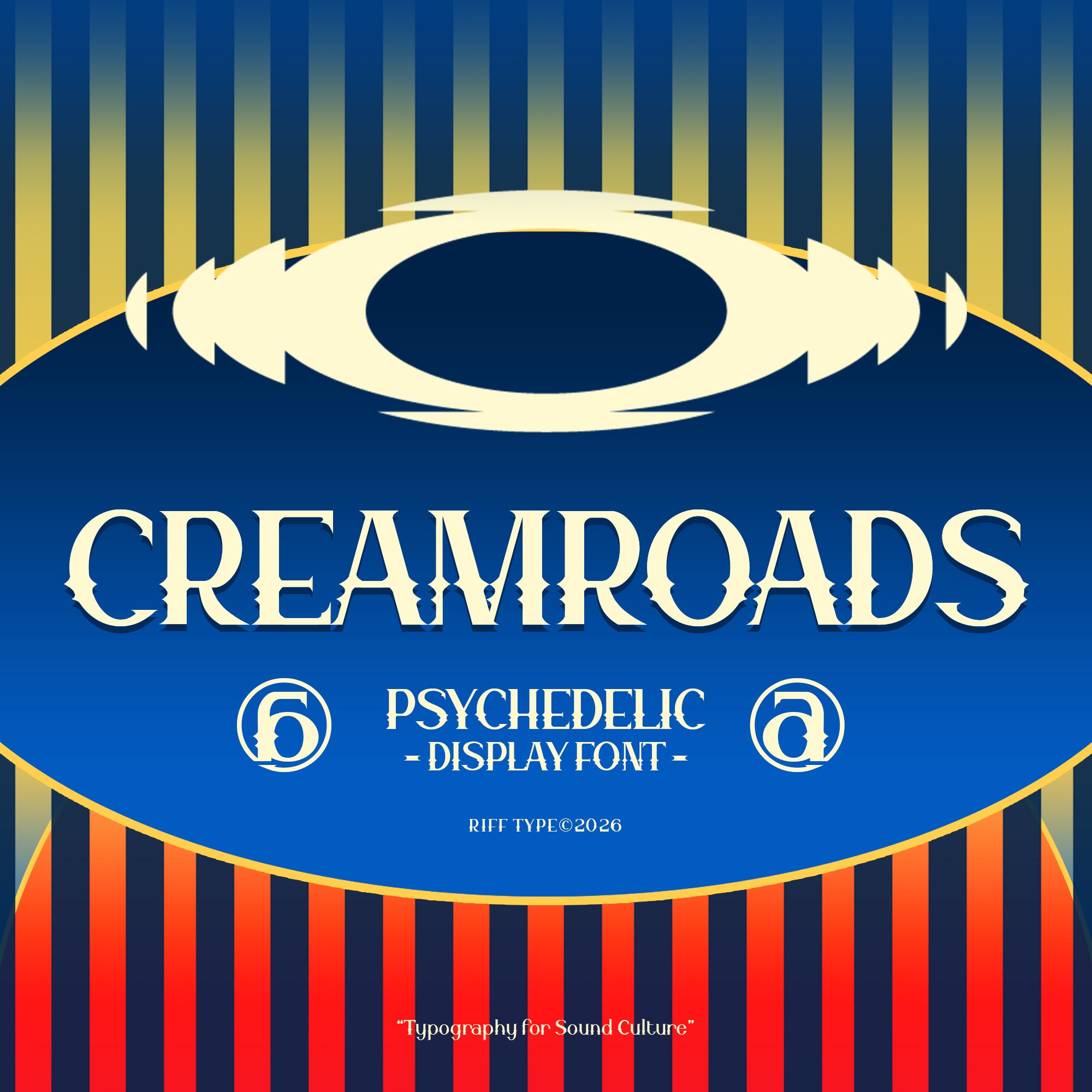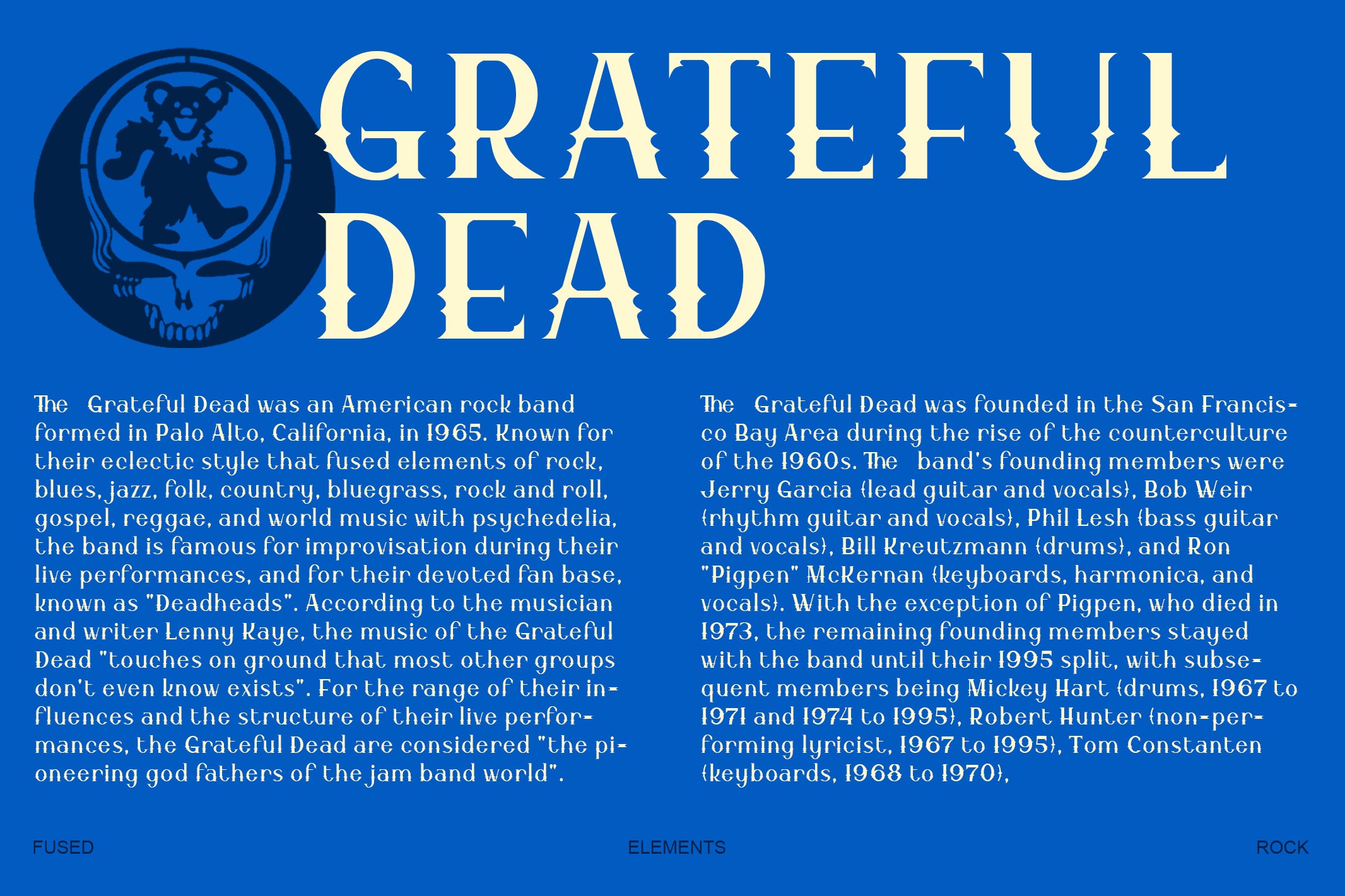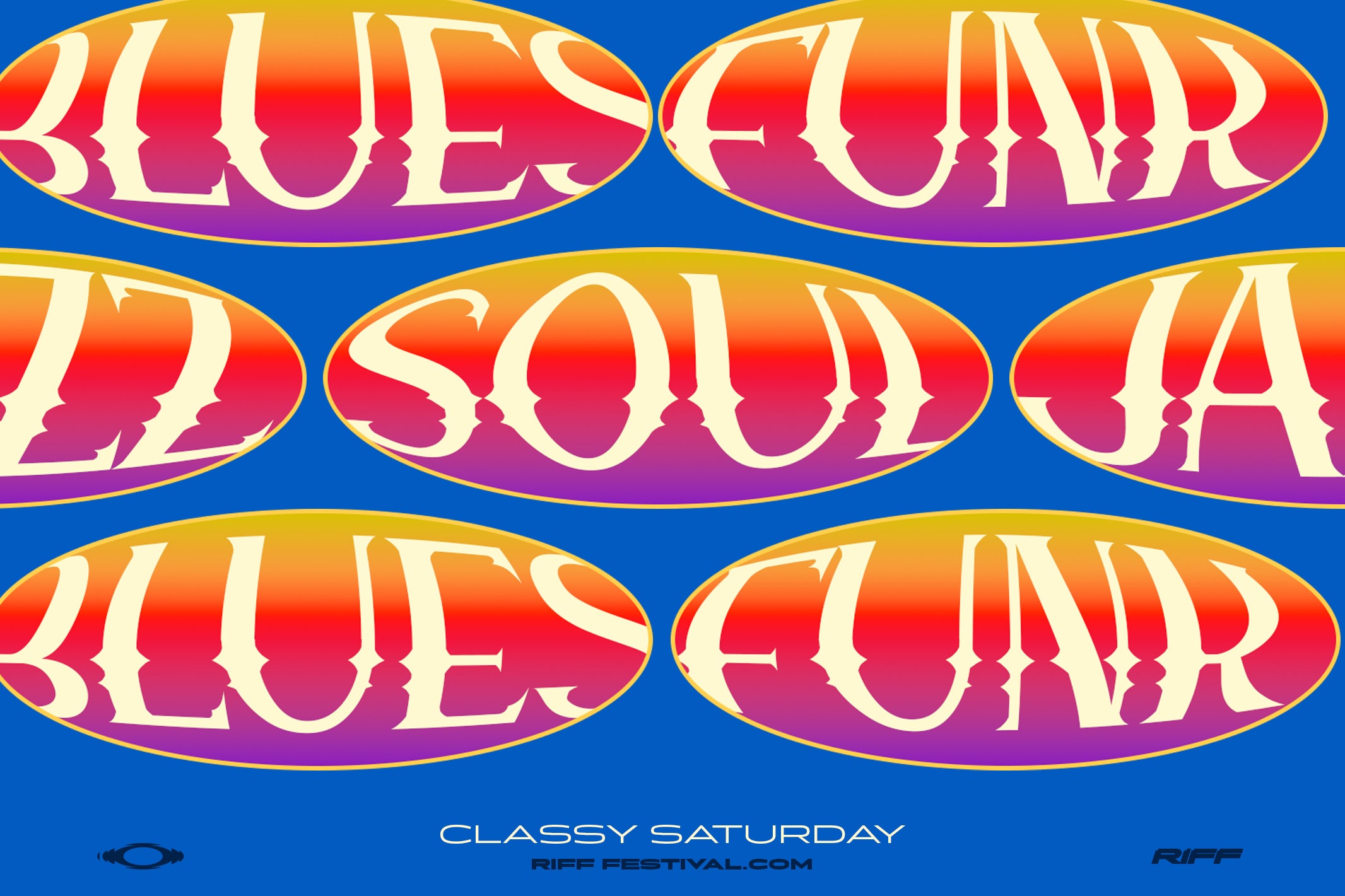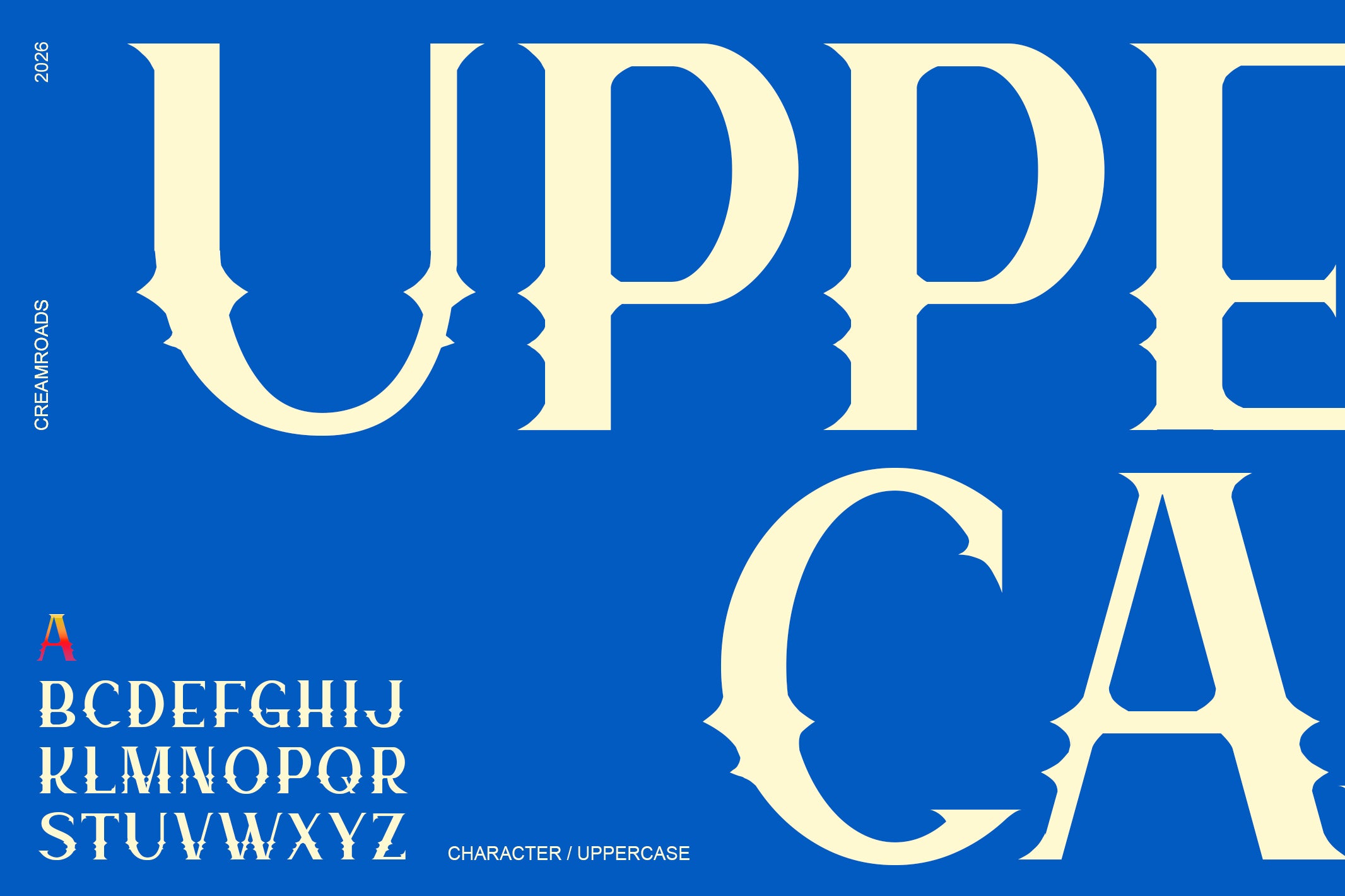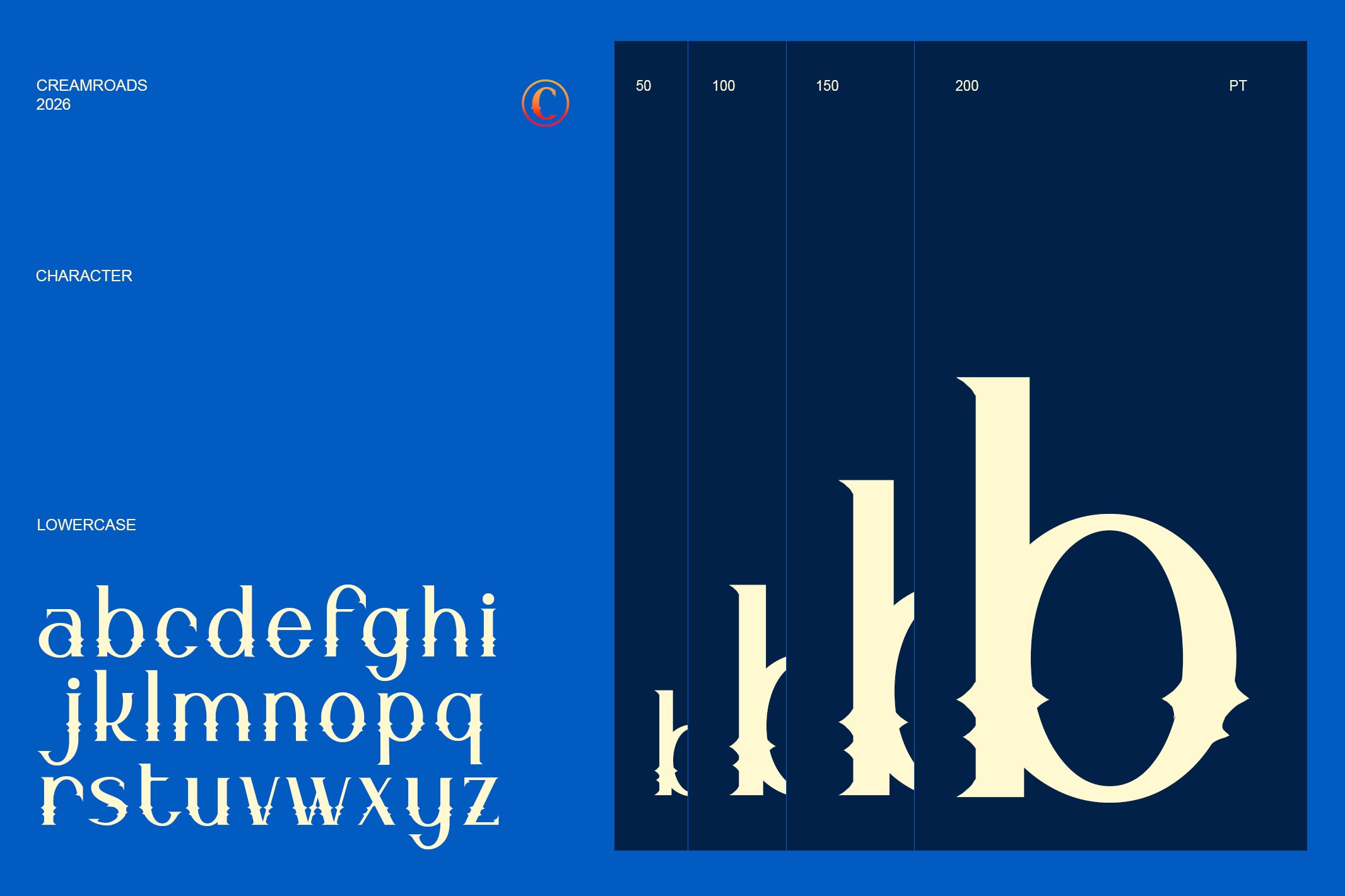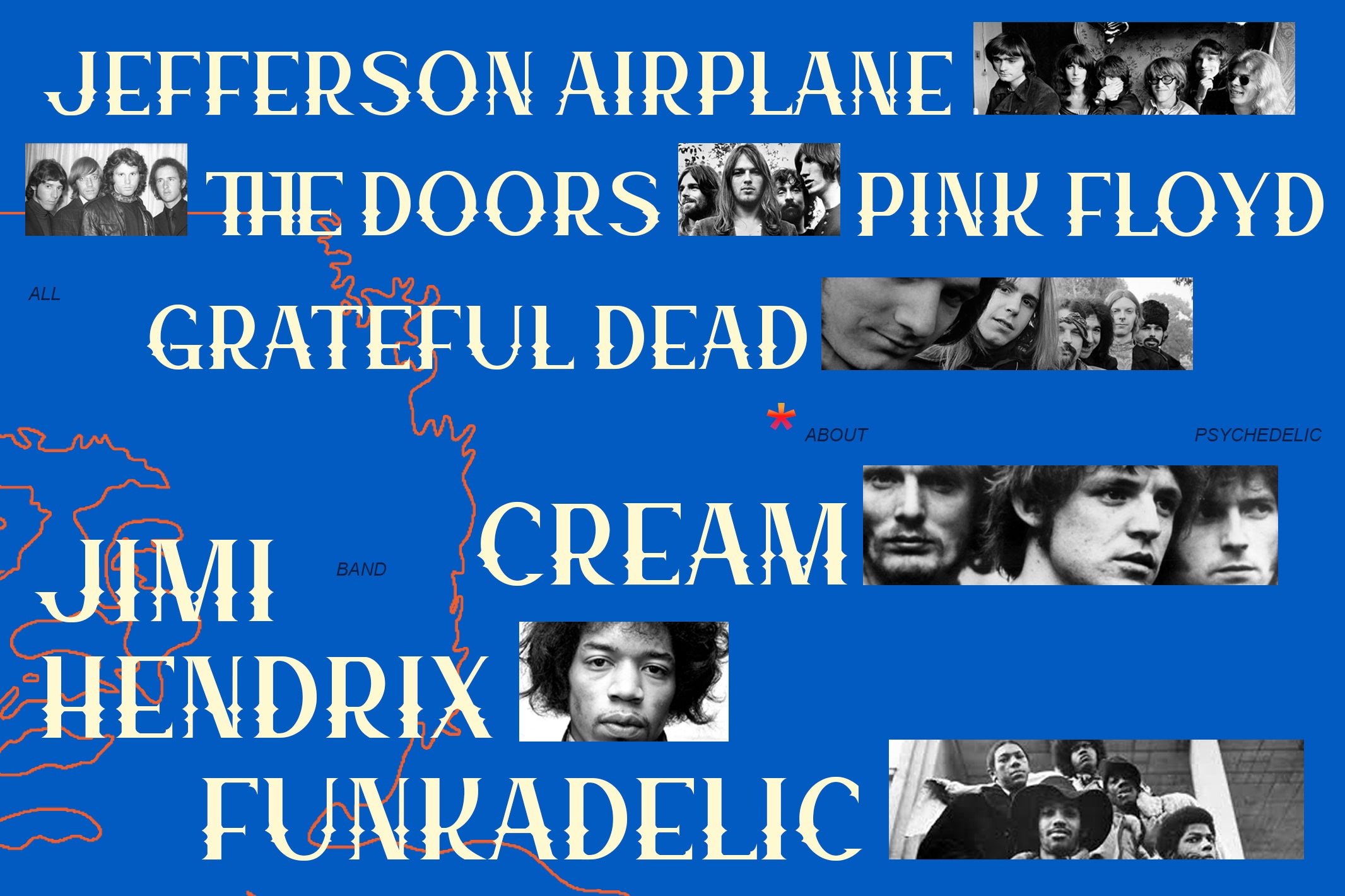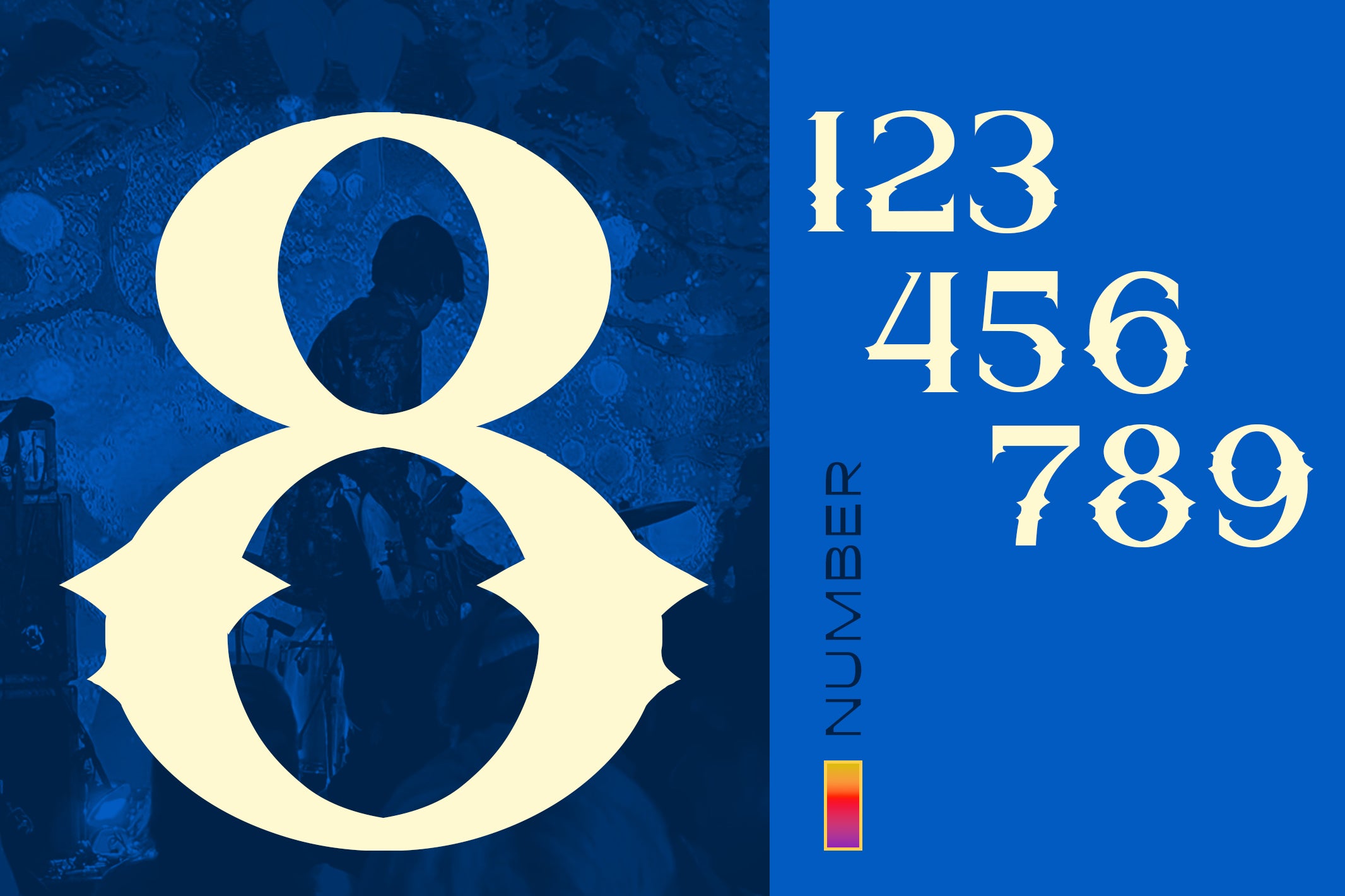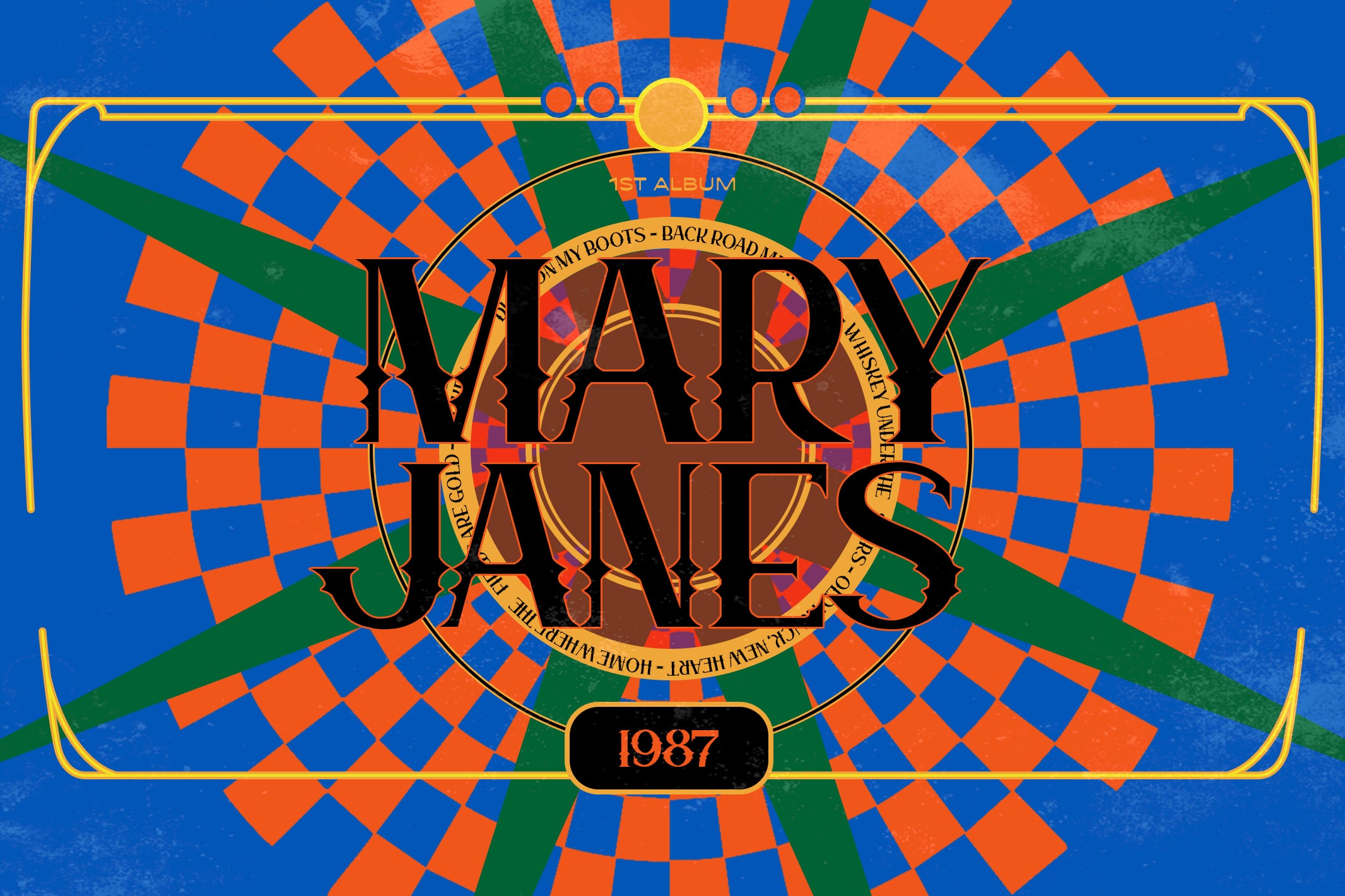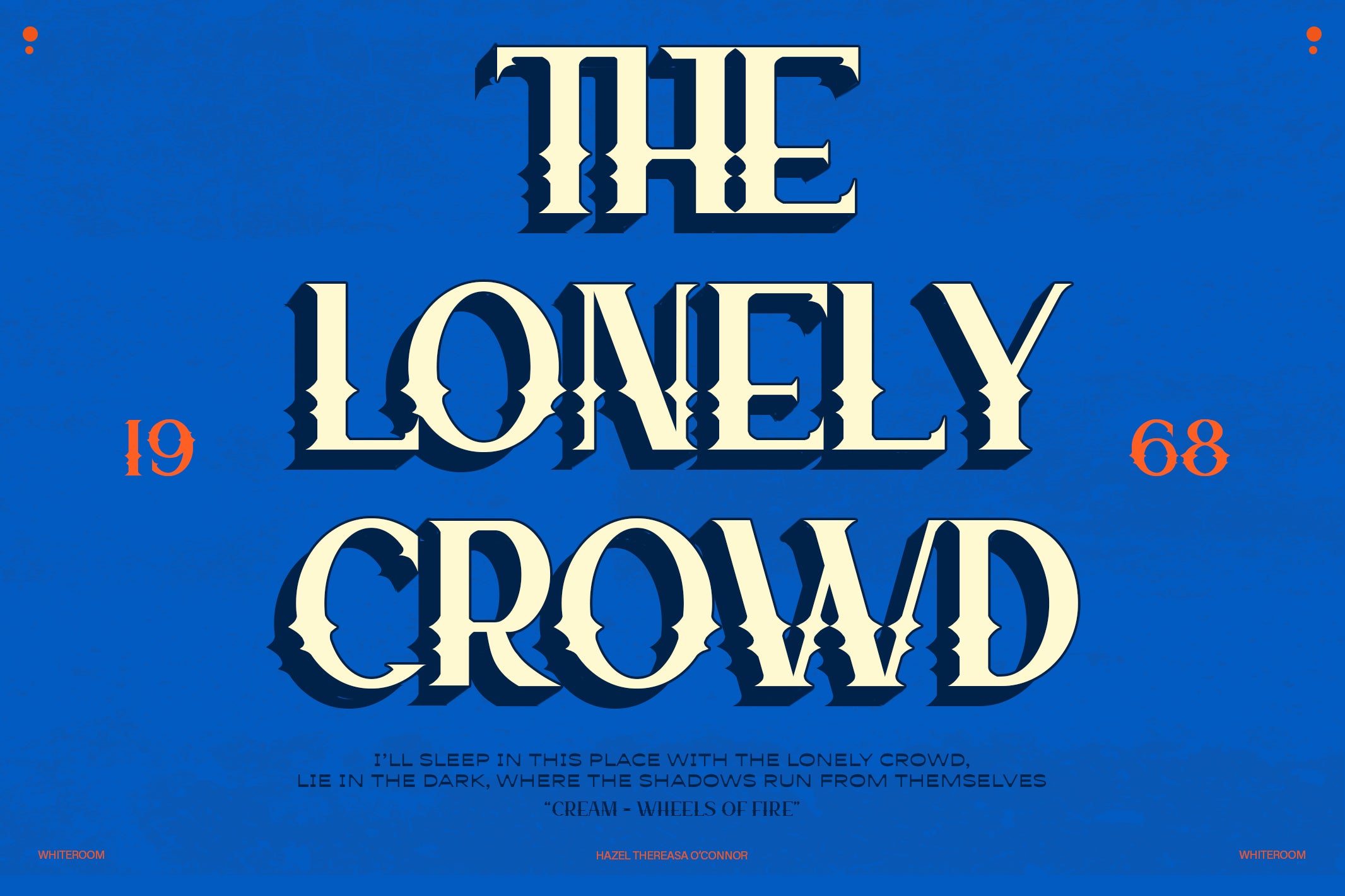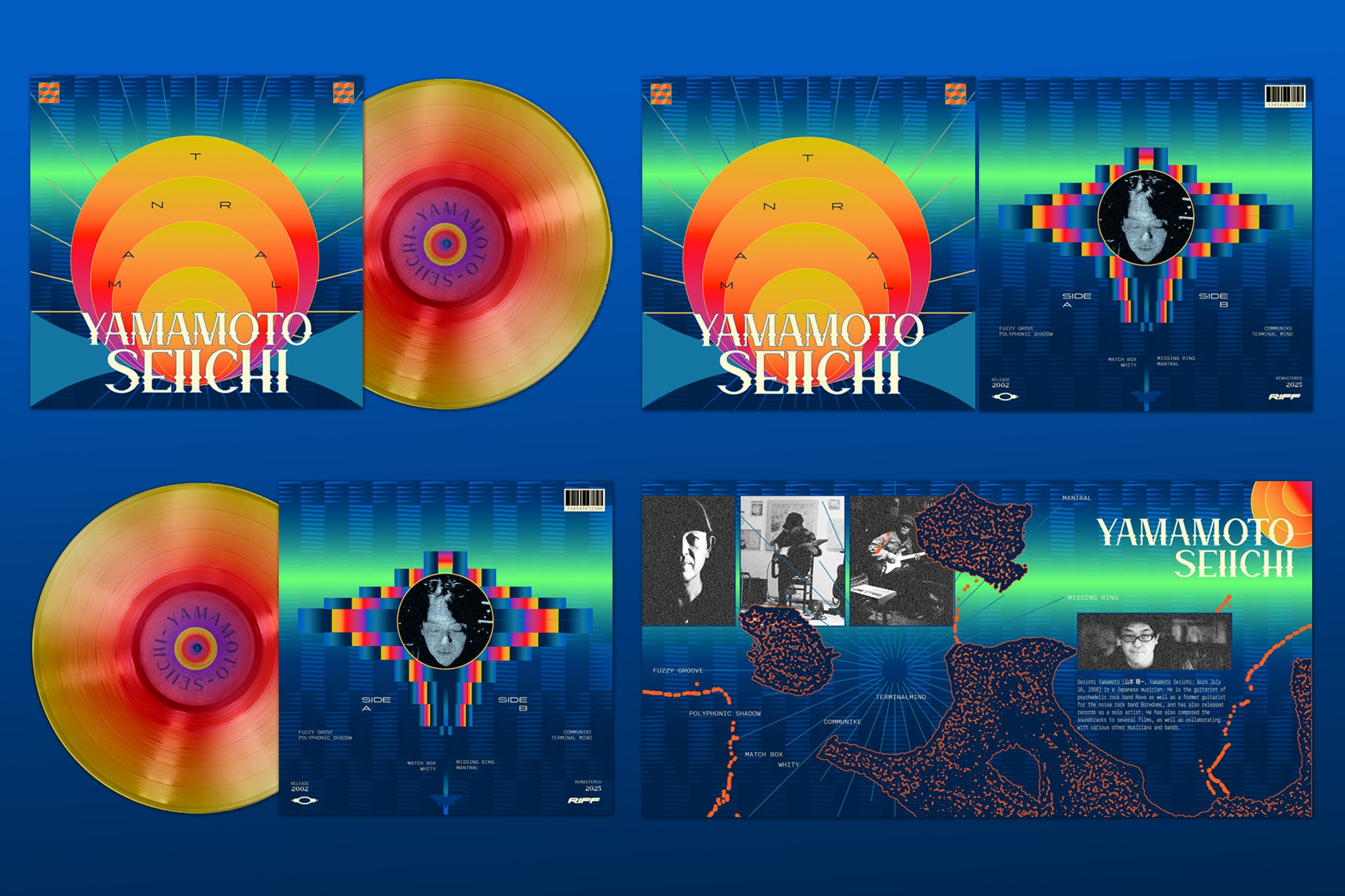
Creamroads - 60s Distorted Psychedelic Font
60s feel with decorative psychedelic serifs. Perfect for classic rock, psychedelic or vintage music-inspired designs.
Creamroads - 60s Distorted Psychedelic Font features decorative psychedelic serifs that evoke a 60s aesthetic. The ZIP file includes TTF, OTF, WOFF, and WOFF2 formats, supporting a range of languages including Basic Latin, Western European, Central and Eastern European, Nordic & Icelandic, and Extended Latin (Baltic languages).